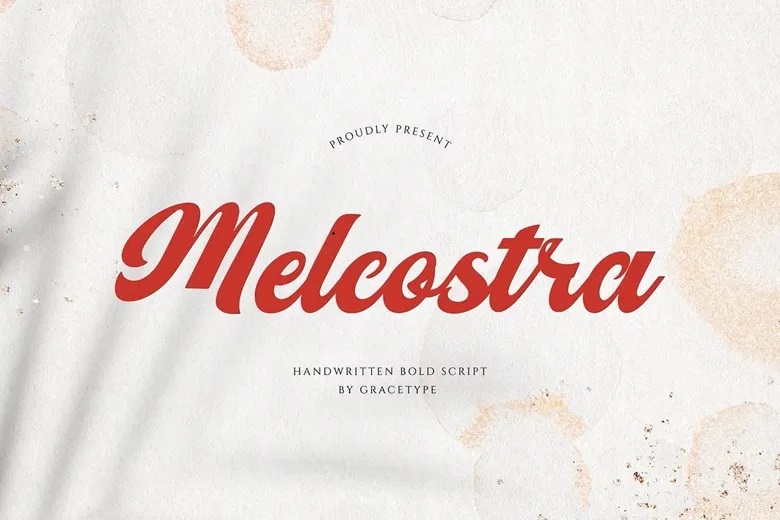
Melcostra Font
Melcostra is a bold handwritten script font. Melcostra is a top pick for branding logos, wedding invitations, packaging, blog headers, greeting cards, and social media graphics.
Melcostra Handwritten Script Font